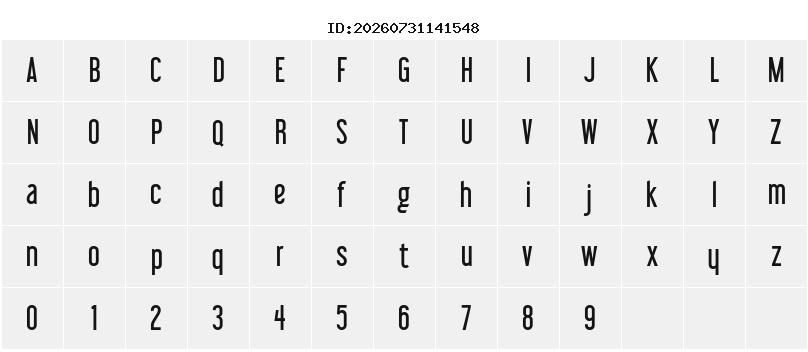
• Font Name: Libel Suit
• Designer: Ray Larabie
About Libel Suit.ttf
Libel Suit.ttf is a modern, elegant sans-serif font designed for ultimate readability and visual harmony. Perfect for branding, headlines, web design, and print materials.